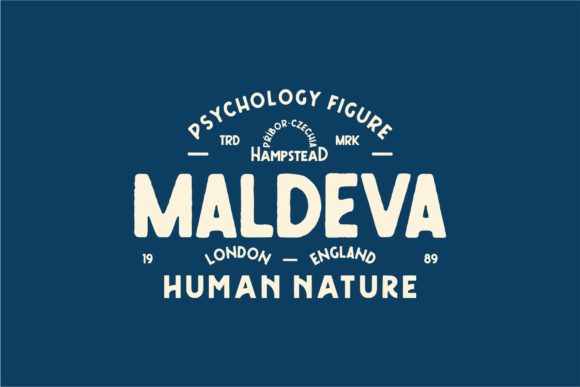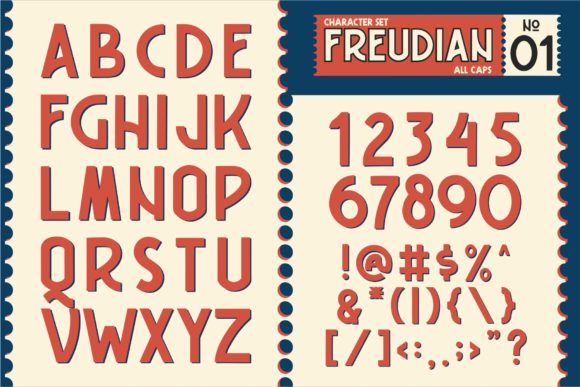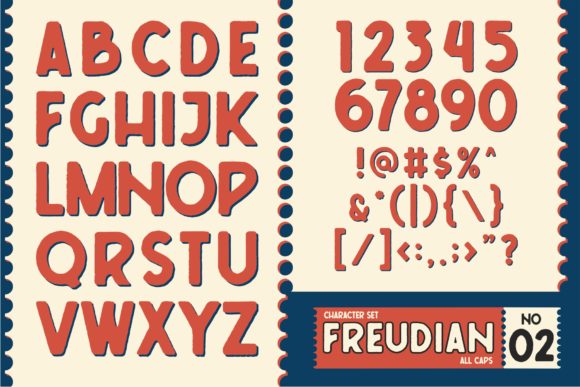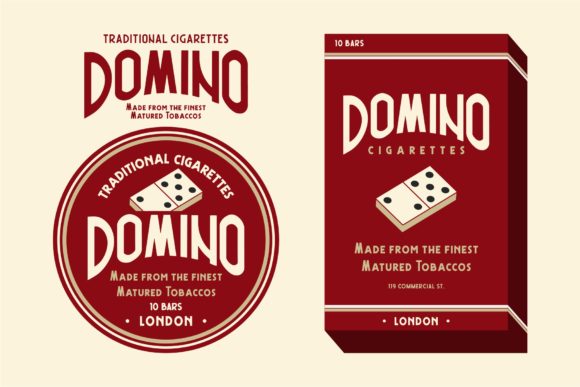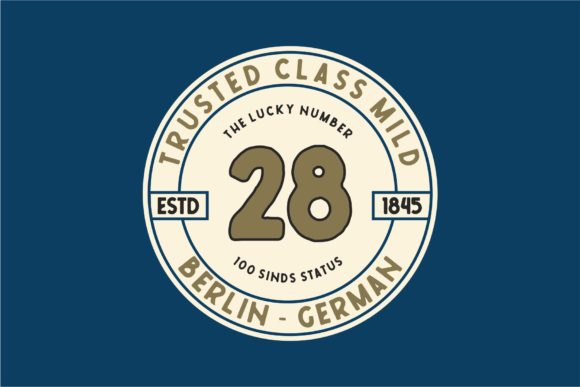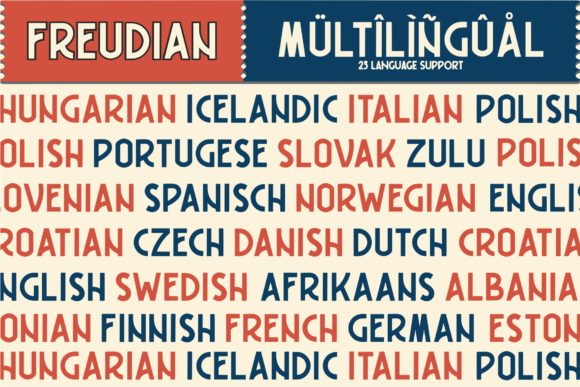
Unleashing the Timeless Charm of the Freudian Font
Have you ever stared at a blank canvas, struggling to find the perfect font to bring your creative vision to life? It’s a moment we’ve all been there – the blank page staring back, the cursor blinking impatiently, and the pressure to create something truly unique. But what if I told you that there’s a font that can transport you back in time, to an era of classic charm and sophistication?
Enter the Freudian Font, a vintage typeface that exudes a classic handmade look, perfect for branding materials, t-shirts, prints, business cards, logos, posters, and much more. This beautiful font is a treasure trove for designers, offering a unique opportunity to add a touch of elegance and nostalgia to their designs. With its timeless charm, the Freudian Font is a valuable addition to any designer’s toolkit, allowing them to create truly memorable and impactful designs.
- Unique Characteristics: Features a unique, hand-drawn design with subtle nuances and imperfections, giving it a personal touch
- Kerning and Ligatures: Optimized for improved readability, with carefully crafted kerning and ligatures for a more natural look
Design Review: Freudian Font
Overall, the Freudian Font has some interesting elements, but it falls short in other areas. Let’s break it down.
- The unique design is certainly eye-catching, making it perfect for adding a touch of whimsy to digital projects.
- The font’s organic feel and flowing lines evoke a sense of elegance and sophistication.
- The font supports a wide range of languages, making it a versatile choice for multilingual projects.
- The font’s irregular shape and uneven spacing may cause readability issues in longer blocks of text.
- The design may not be suitable for body text due to its complex structure, which can make it difficult to read at smaller sizes.
- The font lacks a clear style guide, which can make it challenging to maintain consistency across different projects.
In conclusion, the Freudian Font is a great choice for projects where a unique, statement-making font is needed. However, it’s essential to consider its limitations and potential readability issues when using it for larger bodies of text. With careful application and consideration, this font can add a touch of personality to digital projects.
Freudian Font is ideal for:
- Creating sophisticated headings and titles
- Adding a touch of elegance to your designs
- Creating intricate text designs
- Adding a unique touch to your illustrations